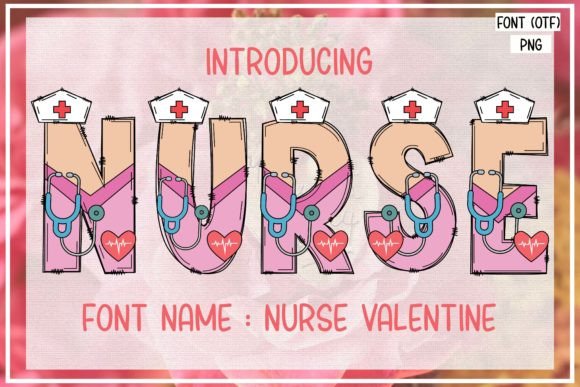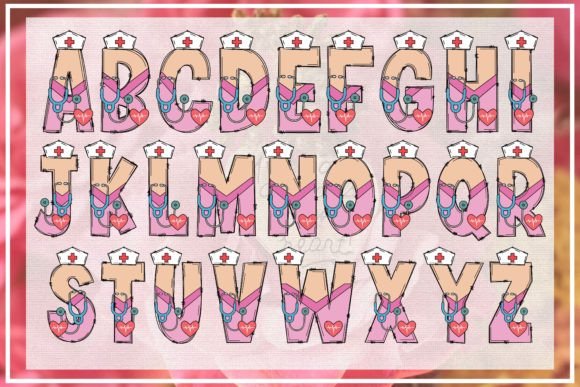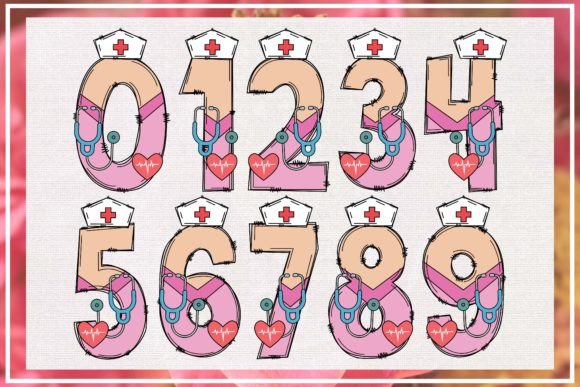
Nurse Valentine Font
About the Nurse Valentine Font
We are excited to introduce Nurse Valentine Font, a must-have typeface for any serious designer. Nurse Valentine is a friendly colorful font with a nurse theme. It embodies playfulness and is the perfect choice for pretty much anything that requires a jolly touch.
Nurse Valentine’s playful energy makes it ideal for children’s books, greeting cards, branding for playful healthcare businesses (pediatric clinics, etc.), and cheerful posters. It’s less suitable for body text or UI elements where readability is paramount; its whimsical forms might hinder clear communication in longer passages.
Pairing it with a clean sans-serif like Open Sans for body copy creates a balanced contrast, allowing Nurse Valentine to shine in headlines or accents. Alternatively, a more playful script font could enhance its cheerful nature, though ensure legibility is maintained. Avoid pairing it with overly serious or geometric fonts that would clash with its friendly aesthetic.
The overall personality is undeniably cheerful and friendly, making it a strong choice for projects needing a lighthearted and approachable feel.